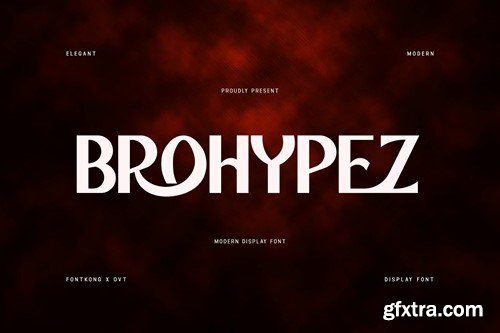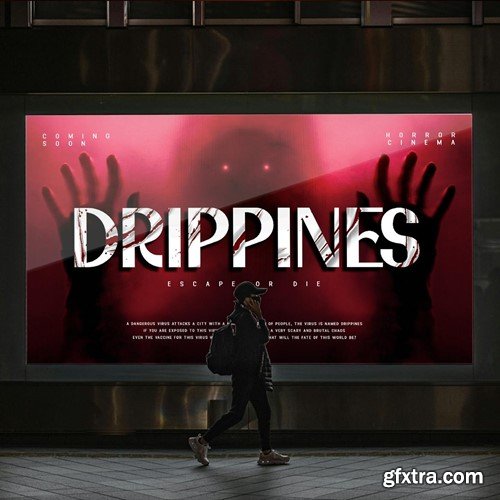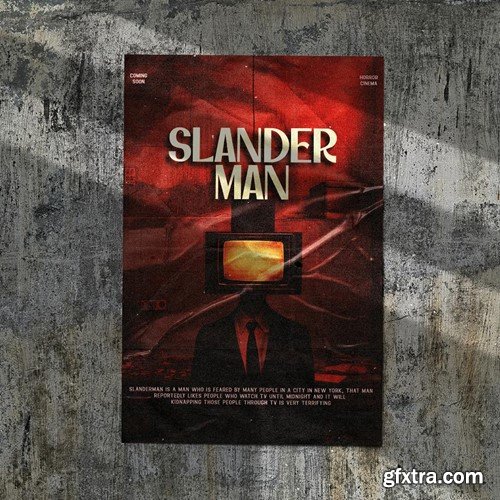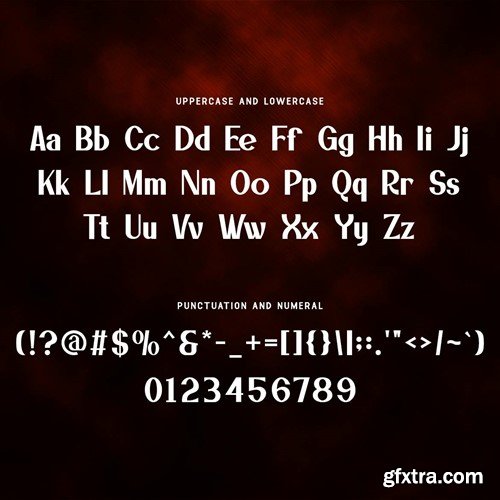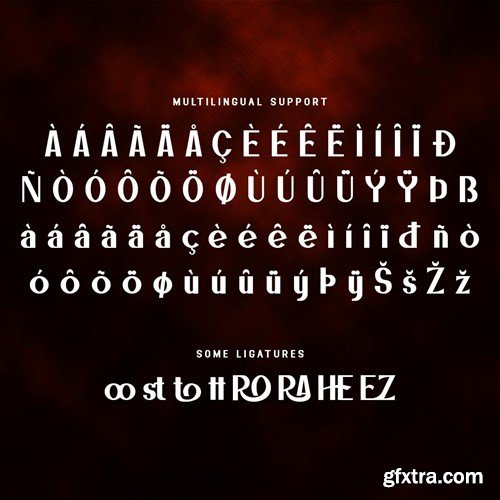
Brohypez - A Modern Display Font Brohypez is a bold and dynamic modern display font designed to make a striking impact in your design projects. With its eye-catching letterforms and contemporary style, Brohypez is perfect for posters, branding, magazine covers, and event flyers. This font combines sleek design elements with a strong visual presence, ensuring your work stands out with a modern and energetic vibe. You will receive the font files in TTF, OTF, and WOFF formats Crafted with attention to detail, Brohypez features robust characters that provide excellent readability and visual appeal. Its bold and versatile design makes it ideal for headlines and display text, giving your projects a memorable and commanding presence. The font’s adaptability allows it to seamlessly integrate into various design contexts, from digital screens to printed materials. Elevate your design projects with Brohypez, a font that embodies the essence of contemporary typography. Its unique style and flexibility make it an essential addition to any designer’s toolkit. Make a powerful statement with Brohypez and experience the dynamism of modern display typography.